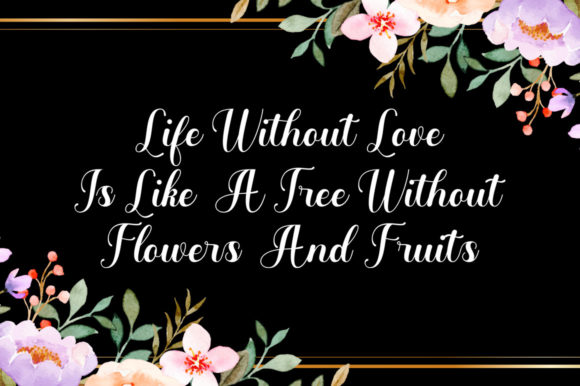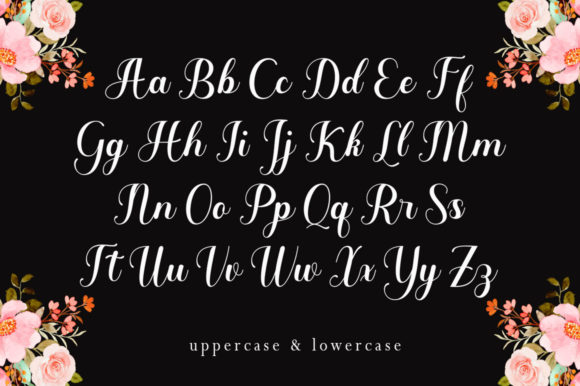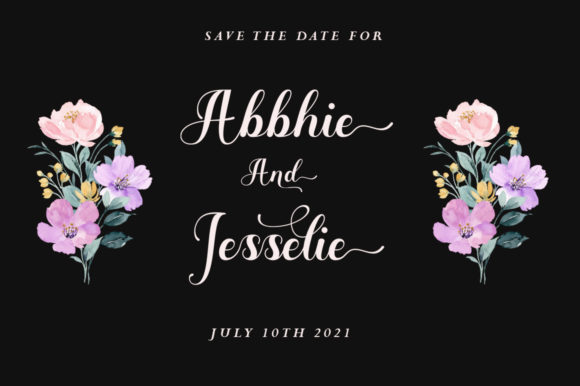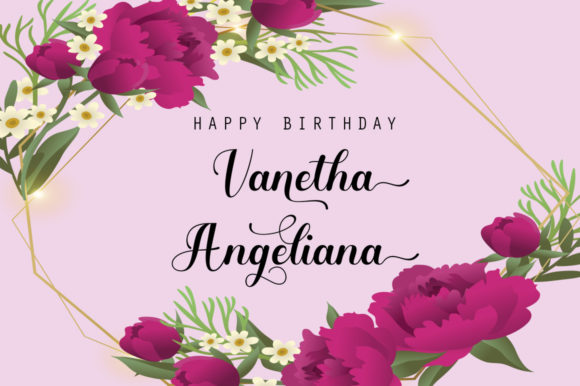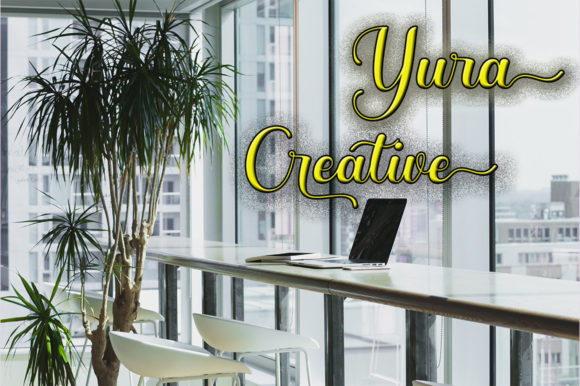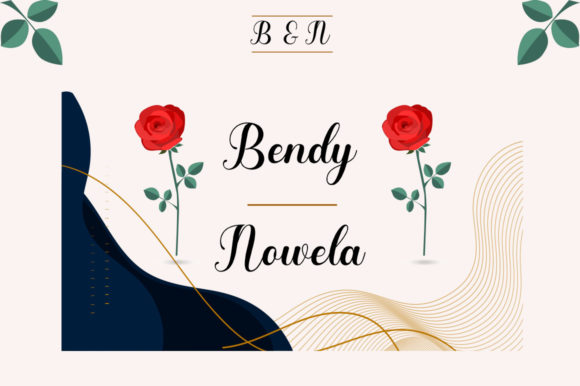
Introduction to Mavedick Font
Mavedick is a beautiful and refined script font.
It has a classy, elegant and modern look that can be used for various stylish creations This font is PUA encoded which means you can access all of the amazing glyphs and ligatures with ease.